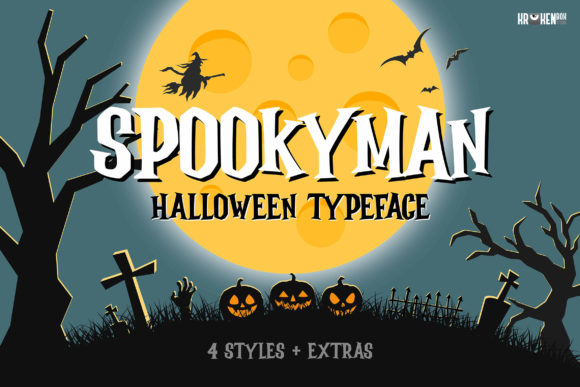
Are you looking for the perfect Halloween-themed display font to make your designs stand out from the crowd? Look no further than Spookyman - Halloween Typeface + Extras Font, created by krakenboxstudio!
Spookyman is the ultimate font for anyone who wants to add a touch of classic horror and mystery to their designs. With its eye-catching, spooky design, this font is perfect for everything from events and fashion projects to album covers, logos, and branding.
But don't let the Halloween theme fool you - Spookyman is also a versatile font that works great for a wide range of other projects. Whether you're creating social media posts, advertisements, or even a magazine, this font is sure to grab your audience's attention and keep them engaged.